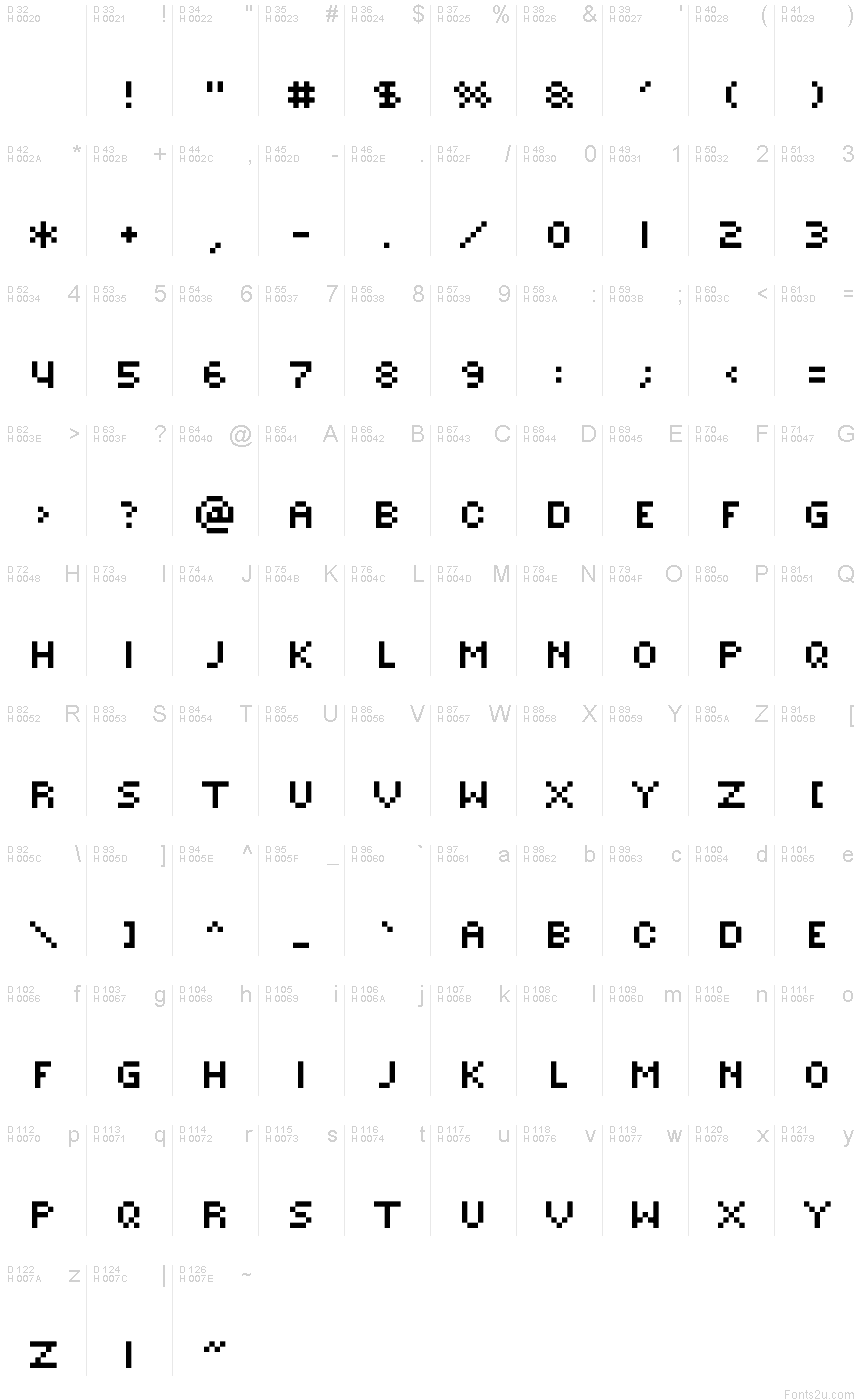
ROTORcap
ROTORcap by David Lindecrantz is a free pixel bitmap font with a blunt, early-screen attitude. The letters are built from large square units, giving the font a crisp modular rhythm and a slightly playful, low-resolution feel that recalls late-1990s interfaces and game graphics more than polished digital slickness.
That makes it a natural fit for poster titles, zine covers, music flyers, game menus, and web graphics where a raw digital texture matters more than smoothness. As a free font, it also suits short logos, section headers, and title cards, because those blocky shapes hold together best when the wording stays brief and the pixel grid can do the talking.